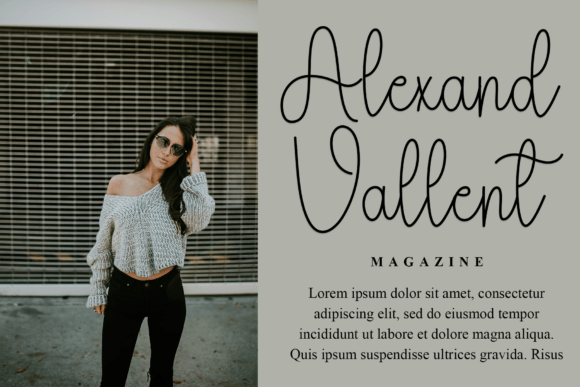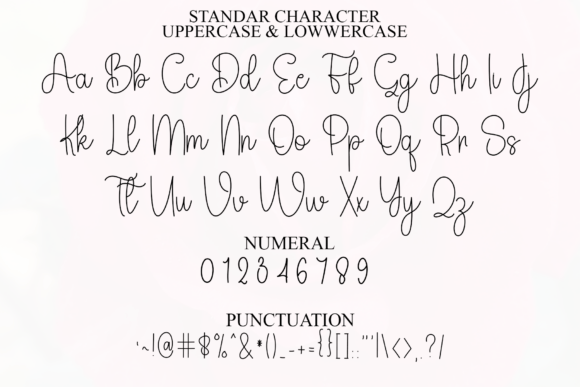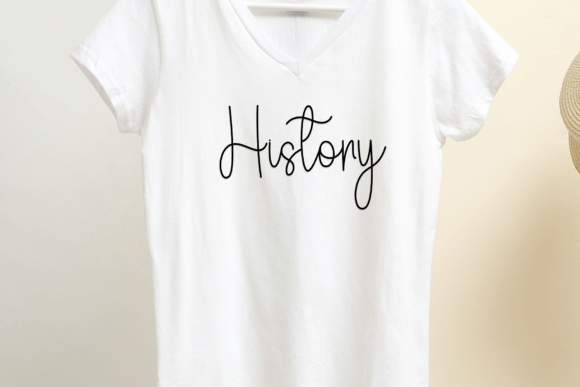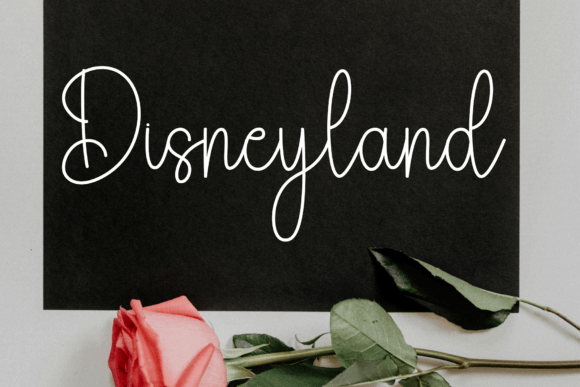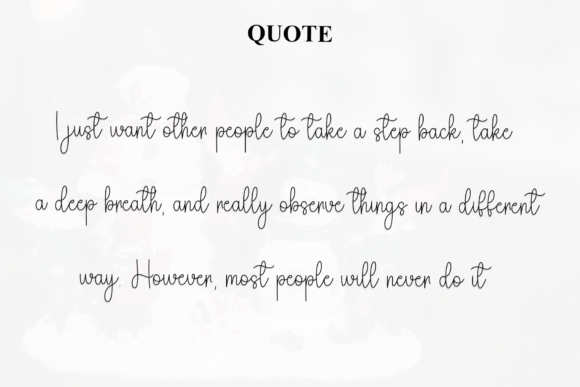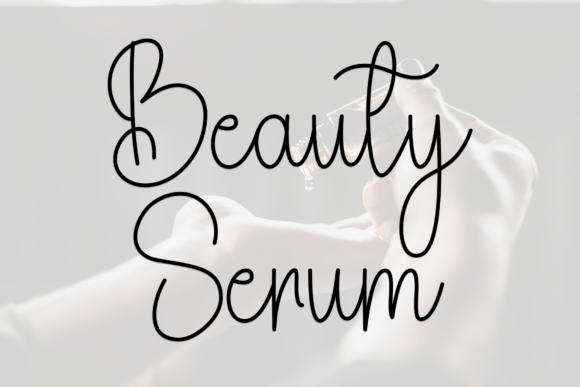
Discover the Timeless Charm of Beauty Giaovany Font
As a designer, you’ve probably had those moments where a single font can elevate an entire project from ordinary to extraordinary. It’s like stumbling upon a hidden treasure trove of creativity, where the right typography can transport your audience to a world of beauty and wonder. For many of us, that moment of inspiration is exactly what we need to bring our vision to life.
Enter Beauty Giaovany Font, a stunning handwritten font that embodies the perfect blend of classic calligraphy and modern flair. This exquisite font is designed to help you create projects that exude elegance, sophistication, and a touch of personality. Whether you’re a graphic designer, artist, or simply someone who loves beautiful typography, Beauty Giaovany Font is sure to become your new favorite companion.
Beauty Giaovany Font Key Features
- Font Family: Beauty Giaovany Font
- Font Style: Script
- Unique Characteristic: Handwritten, elegant, and sophisticated script font, ideal for wedding invitations, greeting cards, and other creative projects.
Beauty Giaovany Font Review
As a designer, I was excited to dive into the Beauty Giaovany Font and see what it had to offer. ✨ From the first glance, I loved the elegant and refined feel it brings to any project. The font is perfect for creating a sophisticated and luxurious atmosphere, making it ideal for high-end branding and design work.
- ✨ The font has a great balance between elegance and readability, making it suitable for a wide range of projects.
- ✨ The Beauty Giaovany Font has a unique and stylish flair that sets it apart from more common fonts.
- ✨ The font is highly customizable, allowing for a range of font sizes, weights, and styles to suit your needs.
However, I did encounter some limitations that prevented me from giving it a perfect score. ⚠️ The font can feel a bit overused and clichéd in certain contexts, which may detract from its overall impact. Additionally, some of the weights and styles can feel a bit inconsistent, which may require some additional tweaking to achieve the desired look.
Overall, I would recommend the Beauty Giaovany Font for designers looking to add a touch of elegance and sophistication to their projects. While it may have some limitations, its unique style and high level of customization make it a valuable addition to any design arsenal.
Tips for Getting the Most Out of Beauty Giaovany Font
Use Beauty Giaovany Font for creative and eye-catching headings and titles.
Combine Beauty Giaovany Font with other fonts to create a unique and visually appealing design.
Beauty Giaovany Font is suitable for:
Headings and titles
Branding and logos
Designing posters and flyers
Creating social media graphics
Alternatives to Beauty Giaovany Font
Great Vibes is a beautiful, handwritten font perfect for creating eye-catching headings and titles. It’s ideal for use in advertising, fashion, and lifestyle projects. When to use: For creative and expressive projects where a personal touch is needed.
Comparison: Great Vibes has a more playful and casual feel compared to Beauty Giaovany Font, which is more elegant and sophisticated. Great Vibes is also more versatile and can be used in a wider range of projects.
Alex Brush is a elegant and sophisticated script font ideal for use in high-end branding, packaging, and editorial projects. It’s perfect for creating a luxurious and refined look. When to use: For projects that require a touch of sophistication and elegance.
Comparison: Alex Brush is more refined and sophisticated than Beauty Giaovany Font, which has a more bohemian feel. Alex Brush is also more versatile and can be used in a wider range of projects, from branding to editorial.
Pacifico is a beautiful, handwritten font perfect for creating a relaxed and casual look. It’s ideal for use in advertising, fashion, and lifestyle projects. When to use: For projects that require a laid-back and beachy vibe.
Comparison: Pacifico has a more relaxed and casual feel compared to Beauty Giaovany Font, which is more elegant and sophisticated. Pacifico is also more versatile and can be used in a wider range of projects, from advertising to editorial.